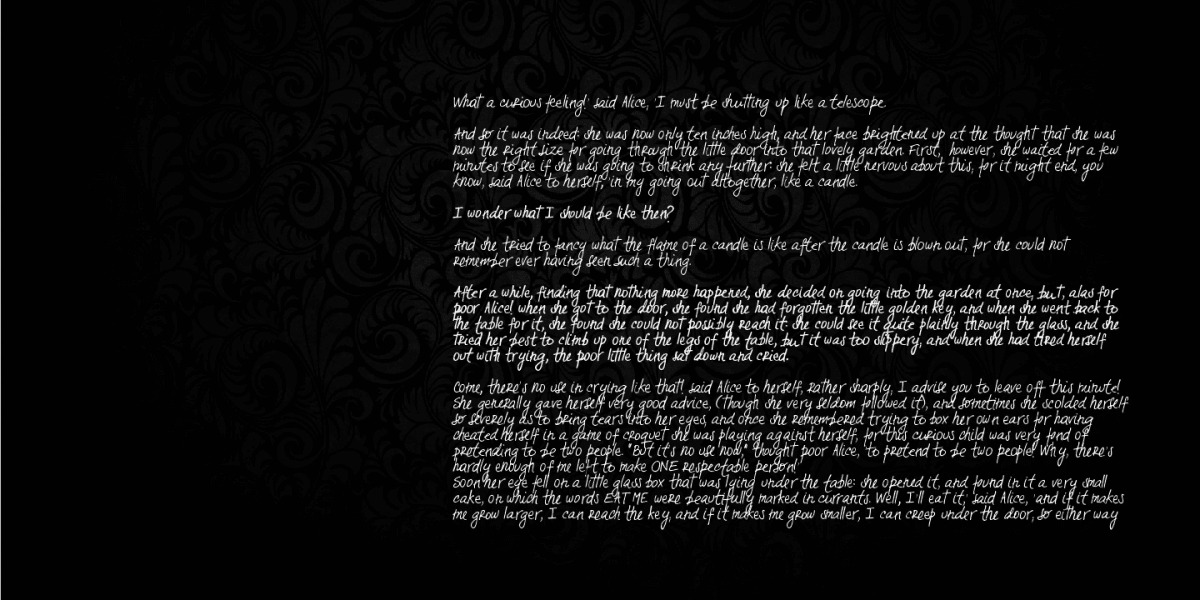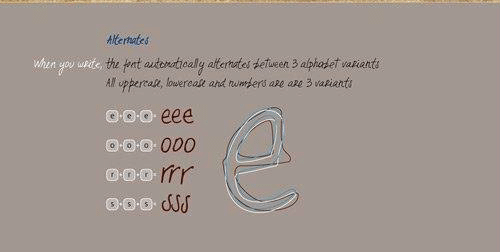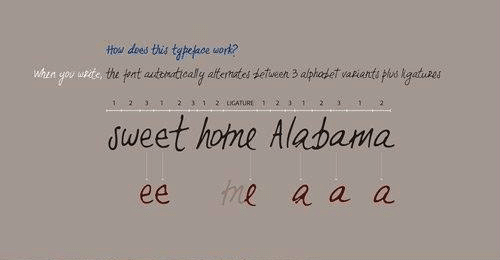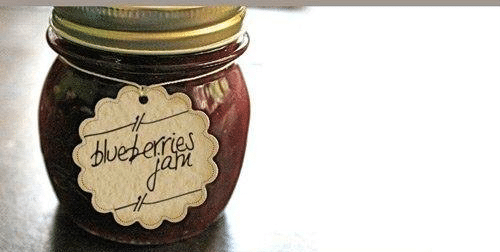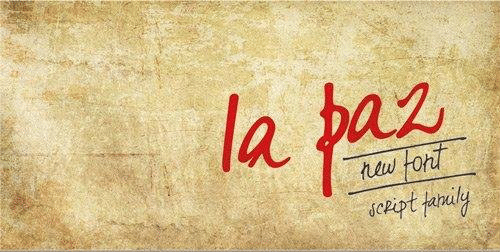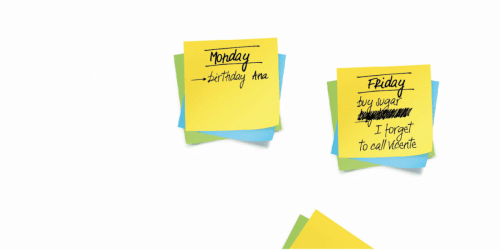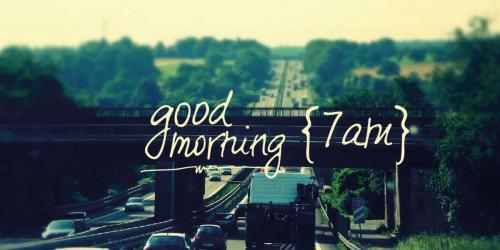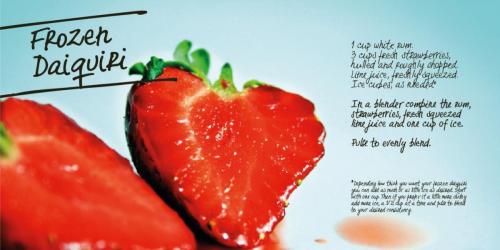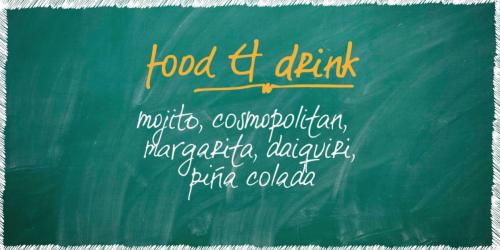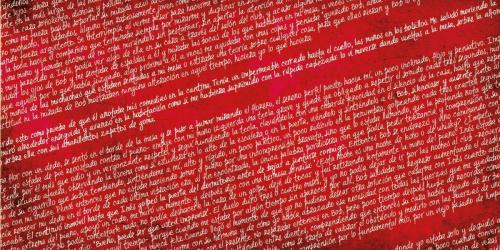
La Paz is a typeface created to emulate handwriting. It consists of three different alphabets which are interleaved to provide variations in height, weight and inclination, typical of handwriting.
In addition it has tens of ligatures, ornaments and opentype programming that help to recreate human gestures. It’s ideal for use in small sizes for designs with a warm imprint and with manual gestures.
- Designer: Fernanda Núñez